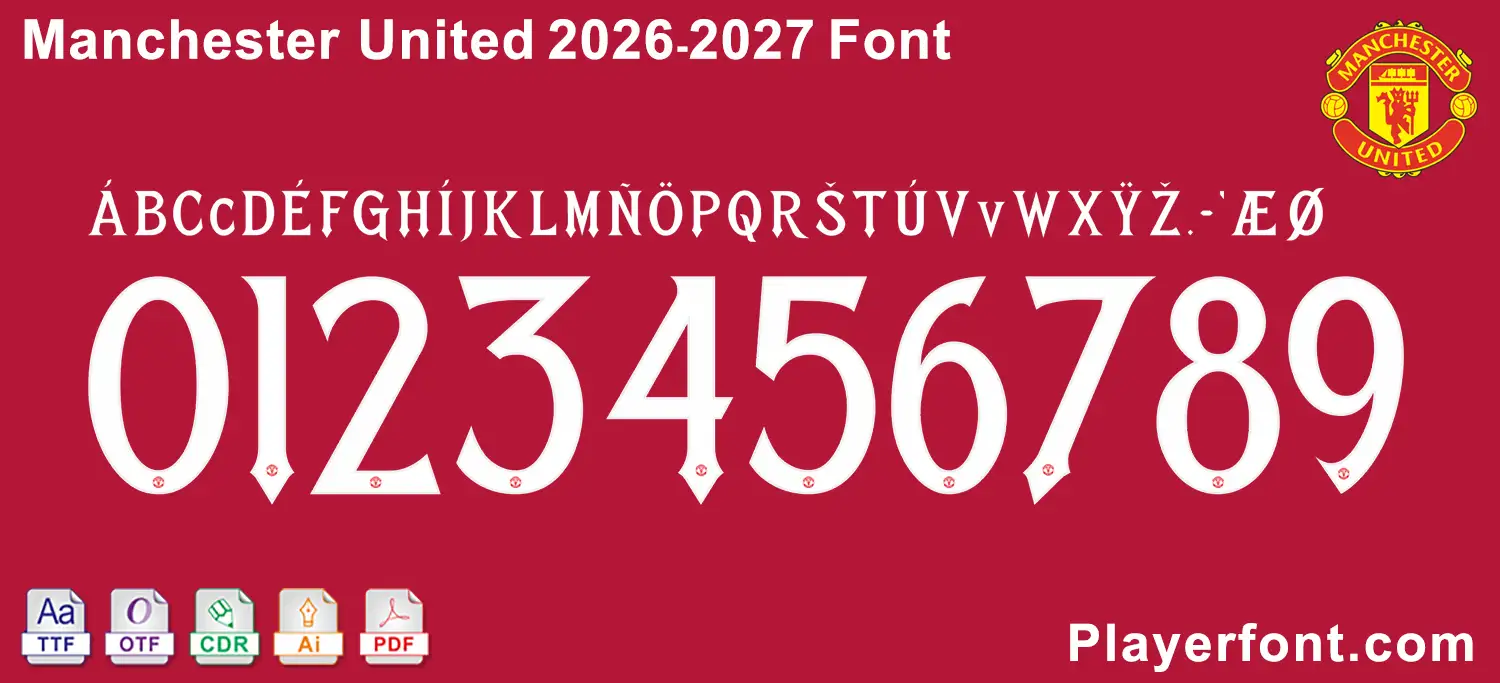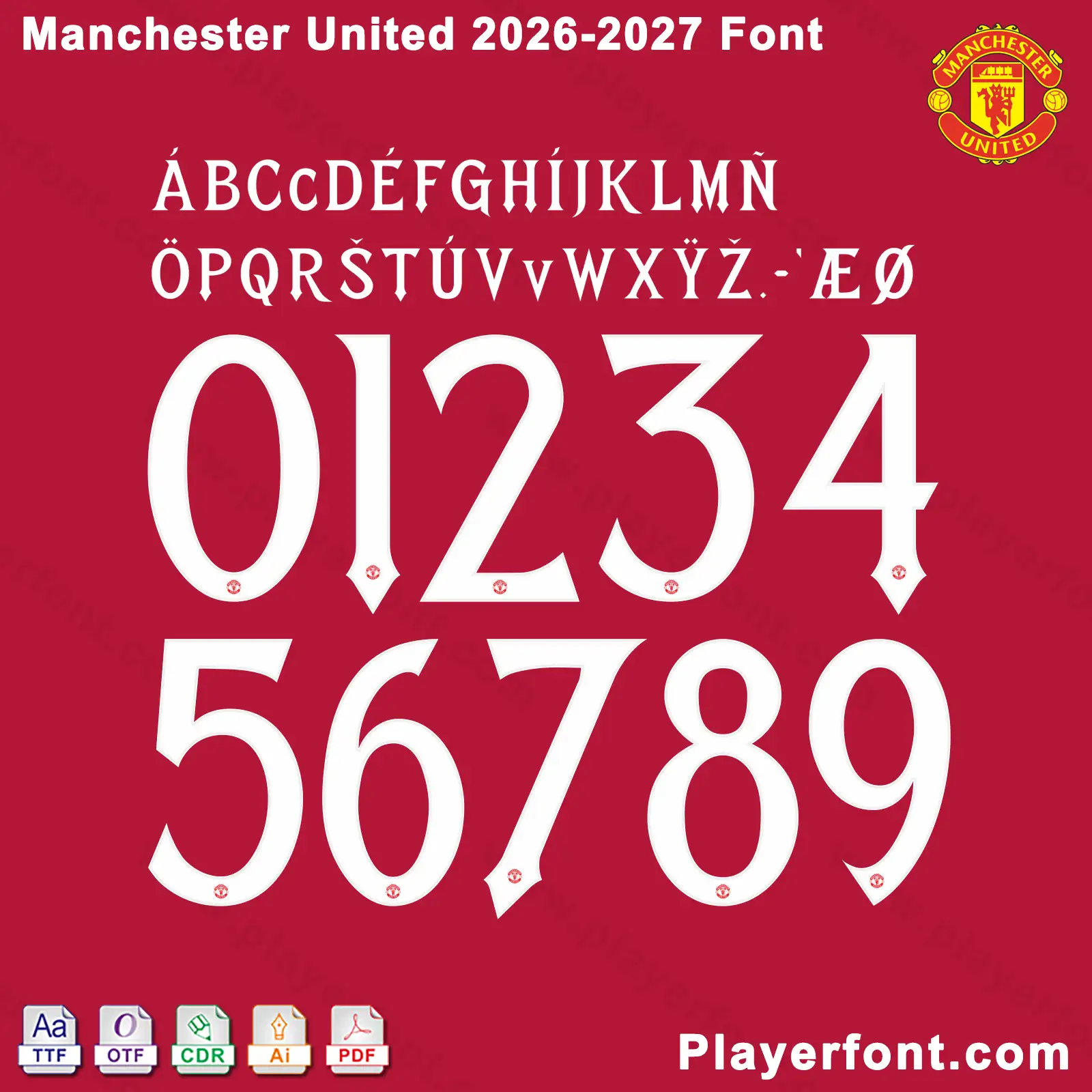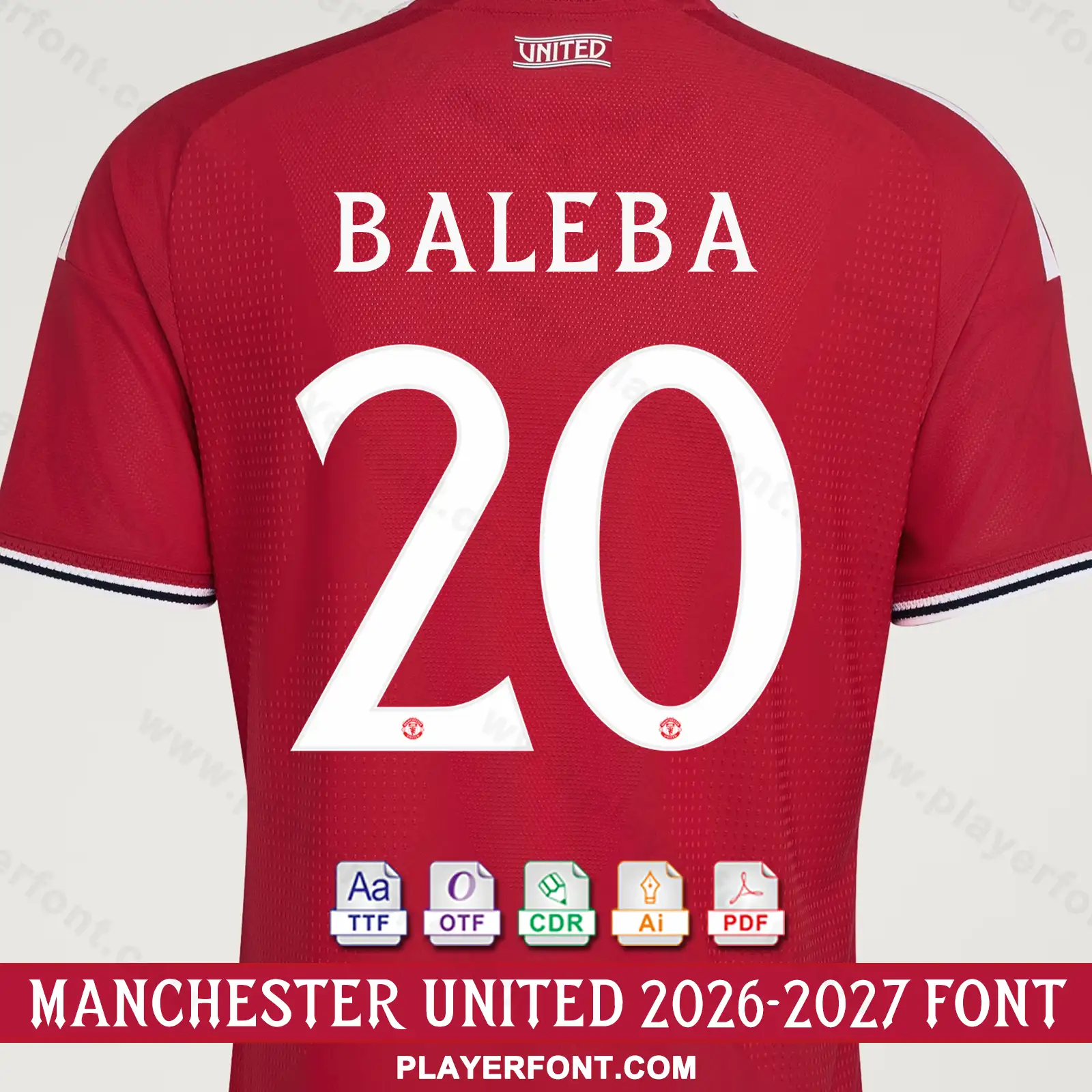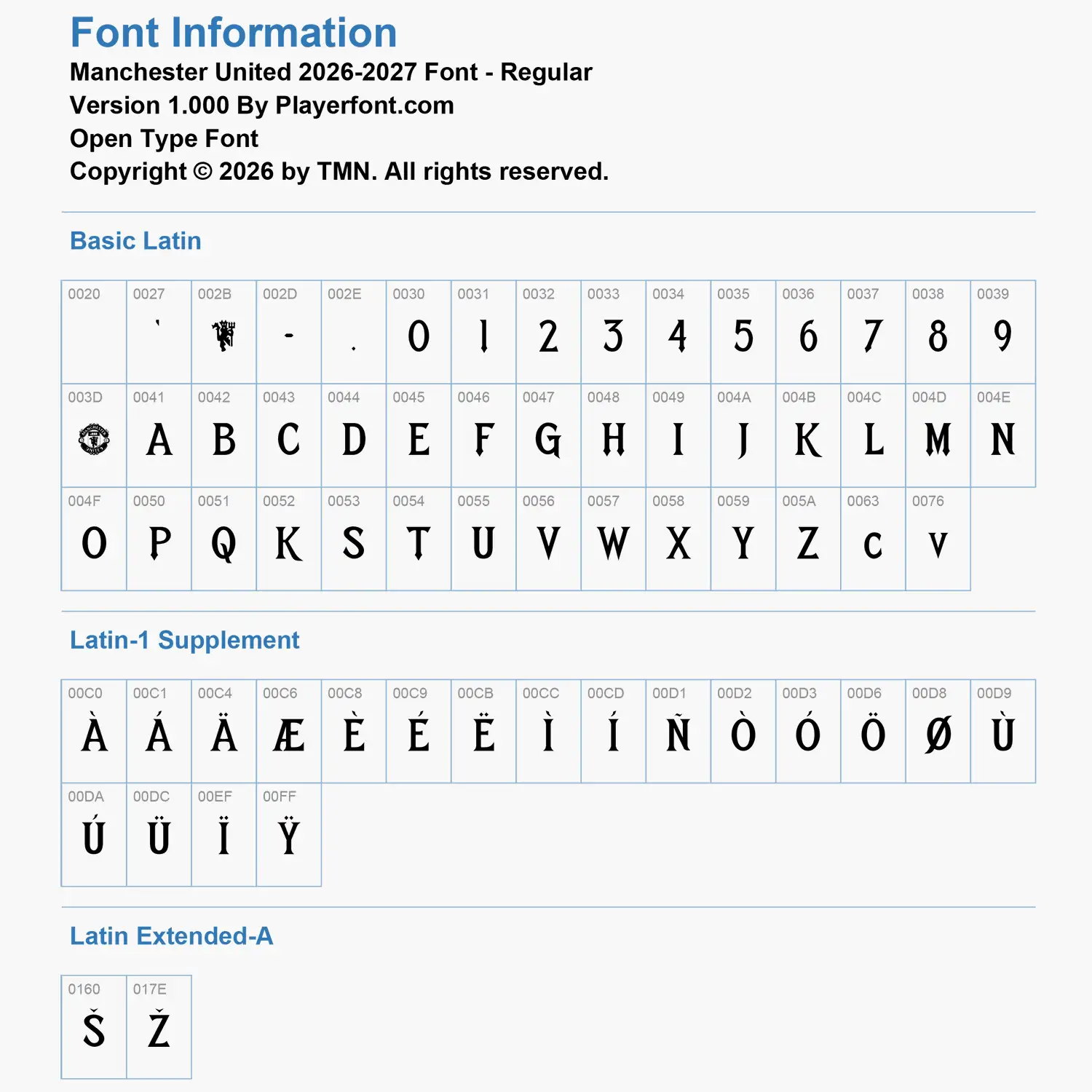
Elevate your sports jersey mockups, football custom graphics, and vector apparel printing projects with the high-quality Manchester United 2026-2027 Font Download. Masterfully engineered by Playerfont.com, this high-performance typography set replicates the official-style numbers and distinct sharp serif lettering featured on the pitch for Red Devils cup and kit designs.
Key Typography Features & Character List:
This typography pack is fully optimized to support international player rosters and diverse numbering layouts:
Classic Sharp Serif Lettering: Contains an elegant uppercase character set with sharp terminal serifs, clean line weight variations, numbers (0-9), hyphens, periods, and apostrophes.
Advanced International Accent Support: Includes an expansive set of diacritics spanning Basic Latin, Latin-1 Supplement, and Latin Extended-A (such as Á, Ä, Æ, È, É, Ë, Í, Ñ, Ö, Ø, Ú, Ü, Š, and Ž) ensuring flawless rendering for international stars (such as Baleba) and global tournament naming requirements.
Authentic Visual Details: The jersey numbers feature crisp white bodies framed by sharp diamond-like bottom points, paired with the full-color Manchester United crest centered near the base of each digit.
| Design Feature | White Serif Body with Pointed Base & Full-Color Red United Crest |